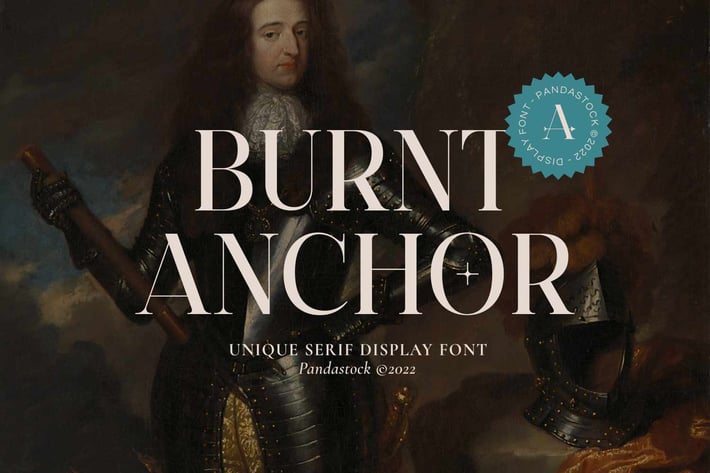
Burnt Anchor - Unique Display Fonts
Burnt Anchor is unique display fonts with visual elegance, smooth curves and beautiful ligatures clear, making your work look true and attractive.
A very versatile font that works in both large and small sizes. This font is suitable for a wide variety of projects such as invitations, logo, branding, magazine, wedding, photography, card, product packaging, mugs, quotes, poster, label, signature and more.
Font which is perfect for all business sectors including personal projects, studio, corporate, creative agency, industrial, company, etc.